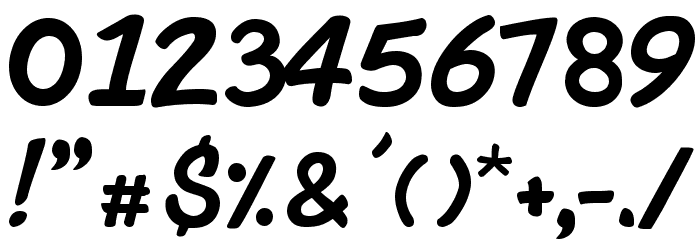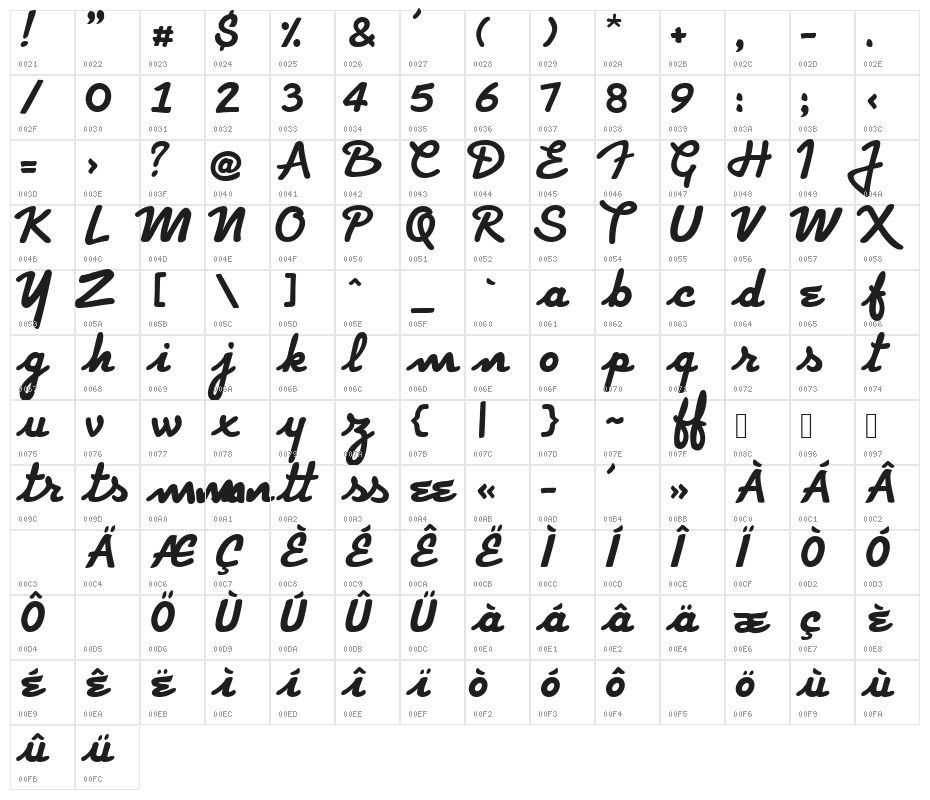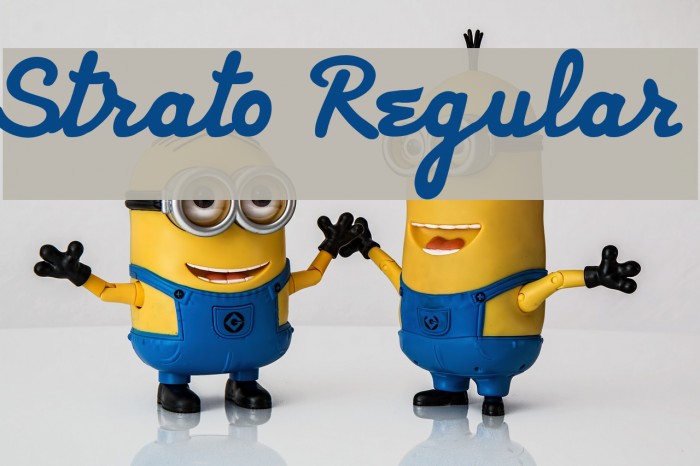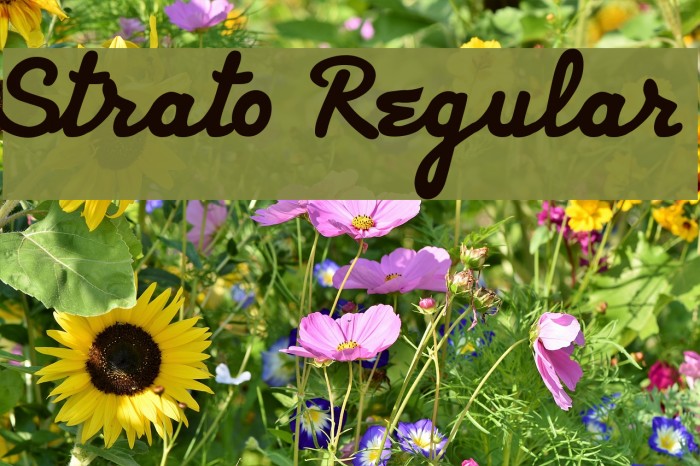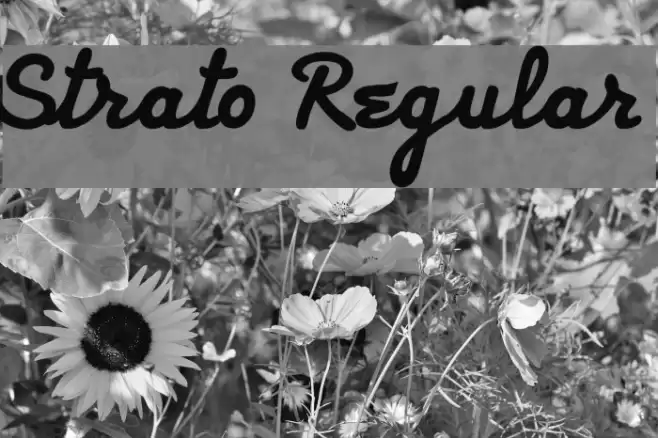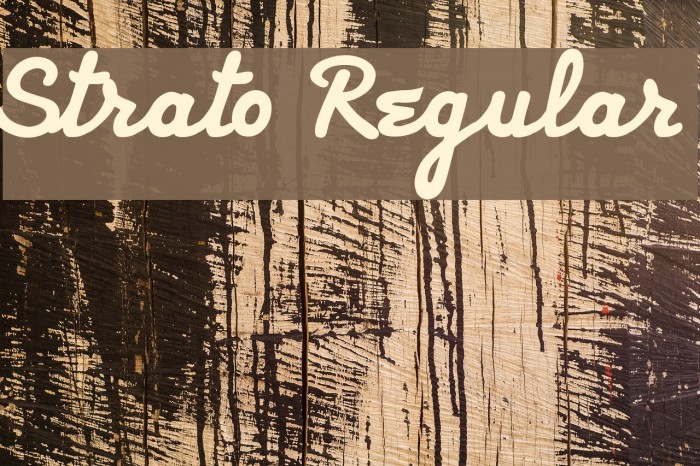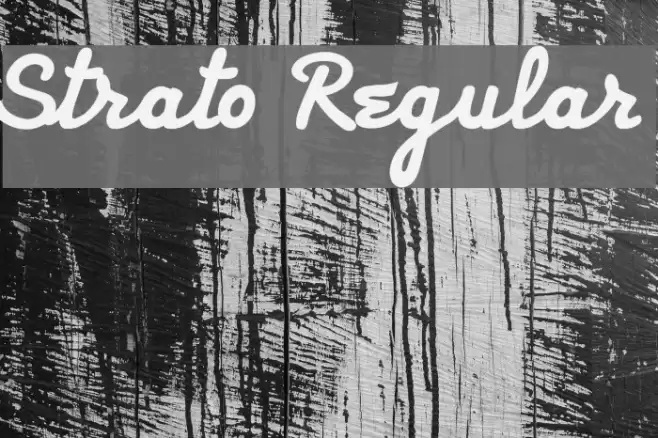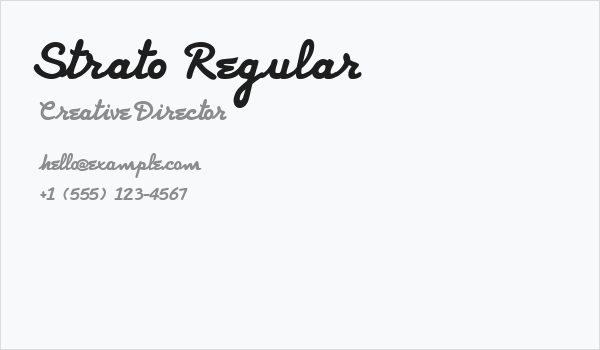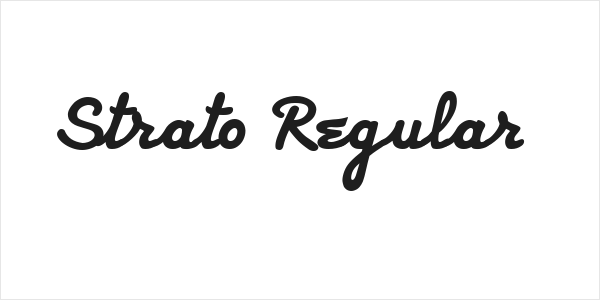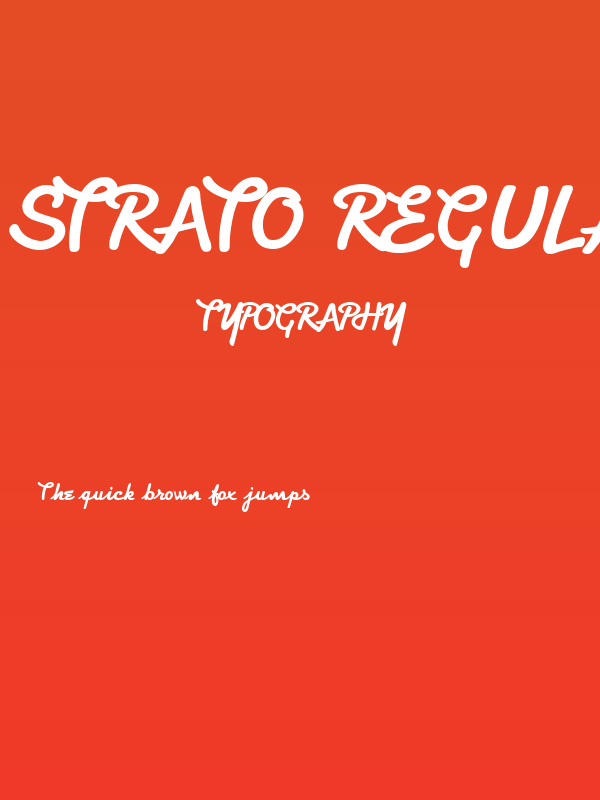
Strato Regular Font
Strato Regular Description
This font features a bold and dynamic script style with a playful yet sophisticated appearance. The letters are connected, mimicking a cursive handwriting style, which adds a personal touch to any text. The strokes are thick and consistent, providing a strong visual impact. The uppercase letters are slightly more angular, while the lowercase letters maintain a smooth, flowing form. Numbers and special characters are designed to match the overall aesthetic, ensuring a cohesive look across all text elements.